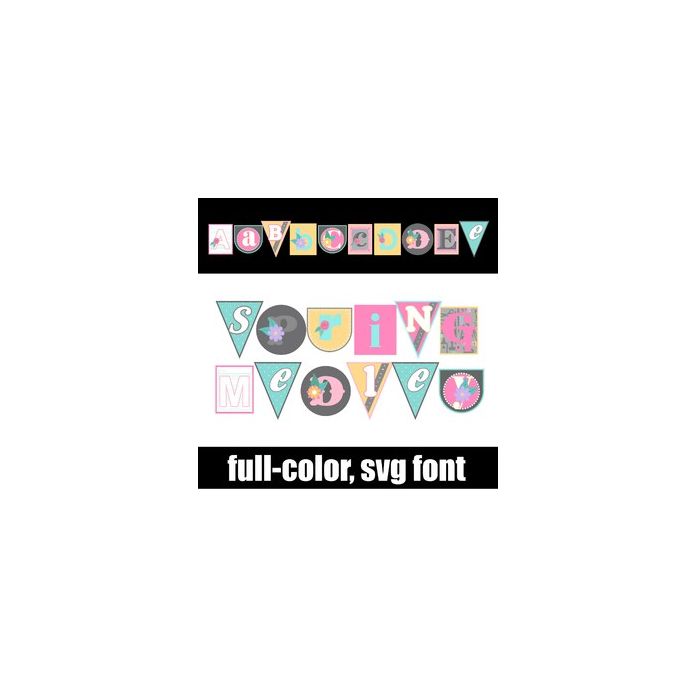
This full-color font features a mix of styles and patterns with a few flowers. There is an alt version you can access through your system's character map that contains additional colors of all the letters.